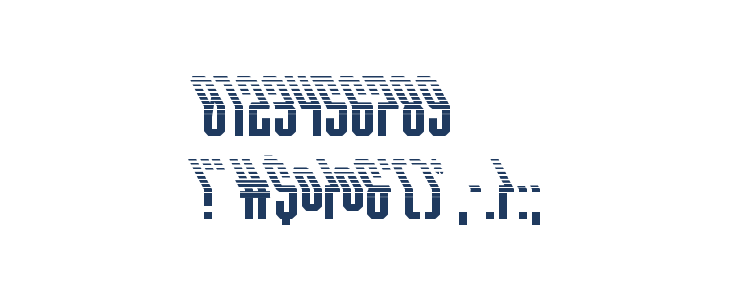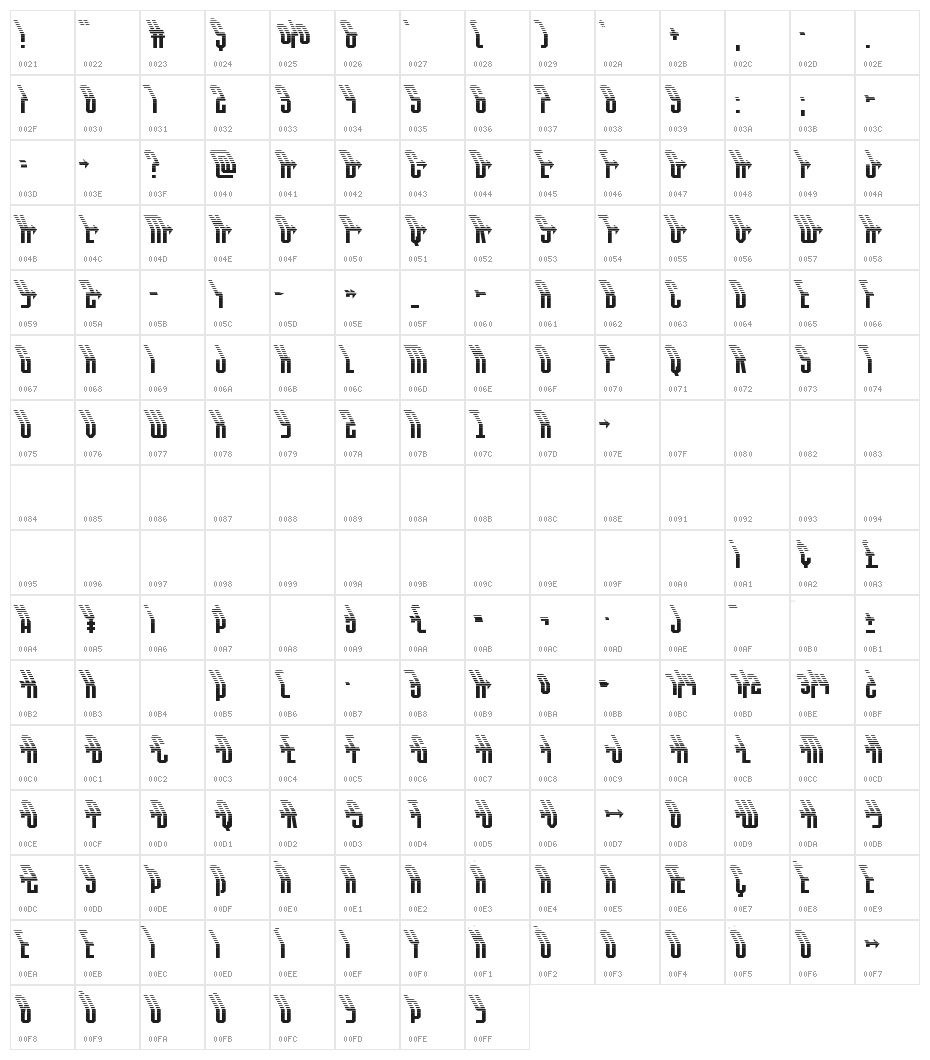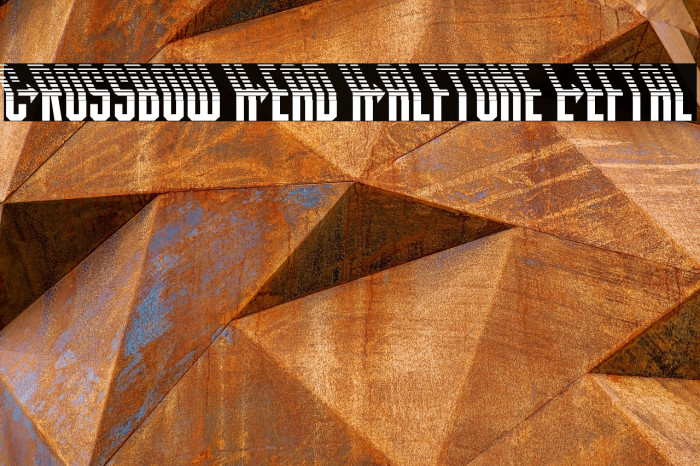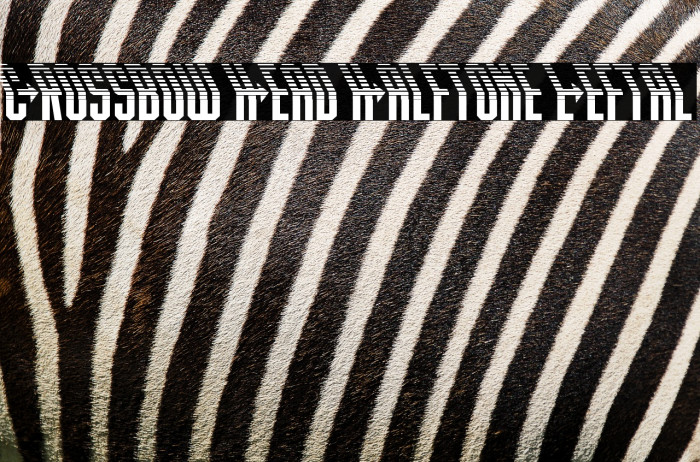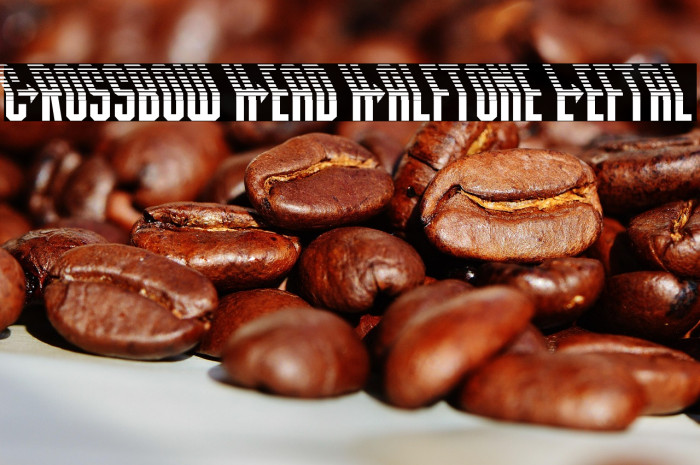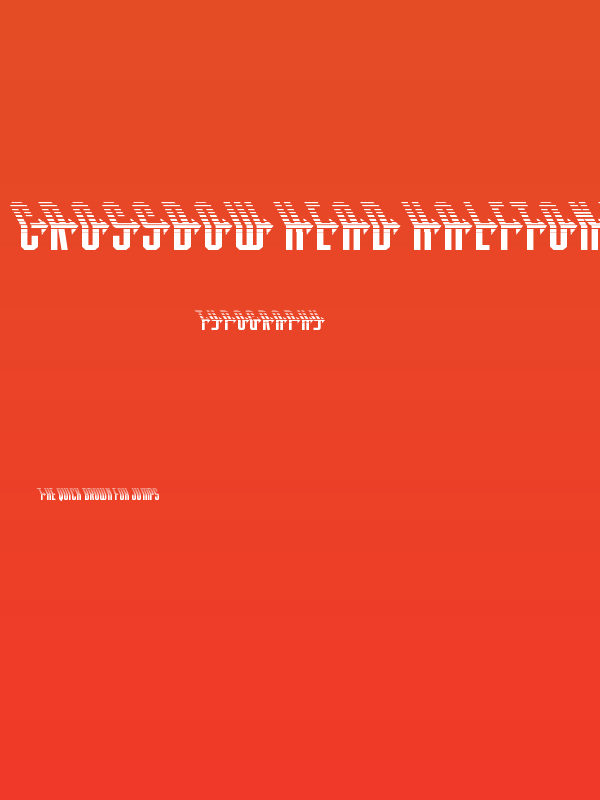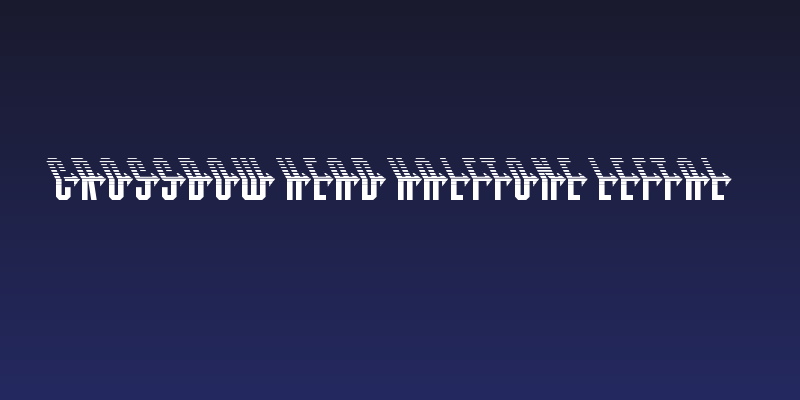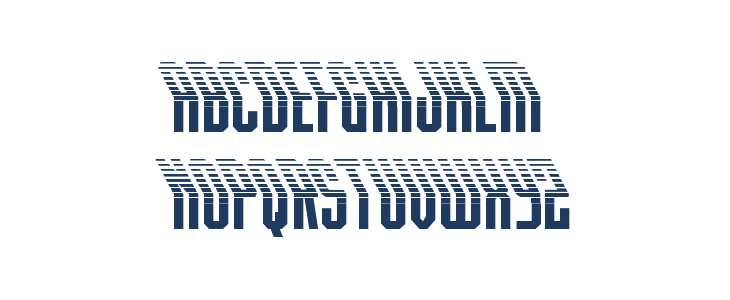
Crossbow Head Halftone Leftal Font
Crossbow Head Halftone Leftal Description
This font features a bold, geometric design with a halftone effect that gives it a dynamic and modern appearance. The characters are constructed with horizontal lines that create a sense of movement and depth. The uppercase and lowercase letters maintain a consistent style, with sharp angles and a futuristic look. The numbers and special characters are equally bold and visually striking, making this font ideal for attention-grabbing designs. The overall aesthetic is both innovative and edgy, suitable for projects that require a strong visual impact.
| Proposed Projects | Ideal for posters, album covers, video game graphics, and branding that requires a modern, edgy look. |